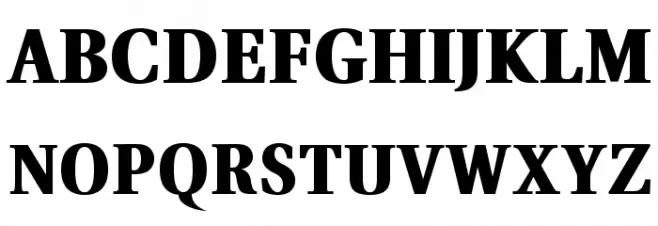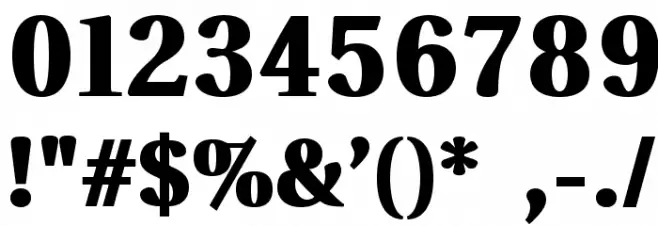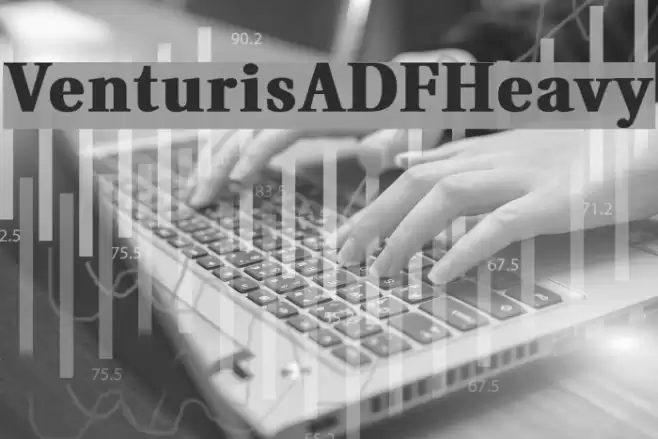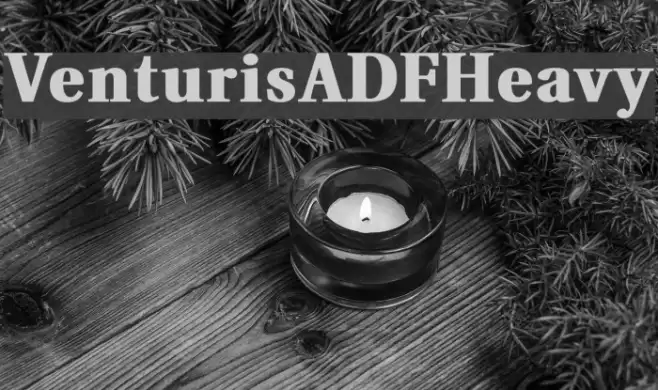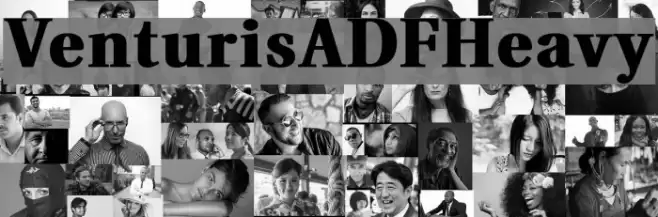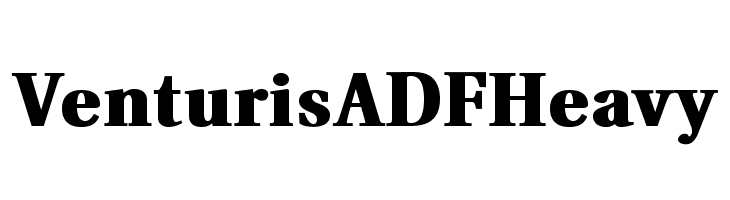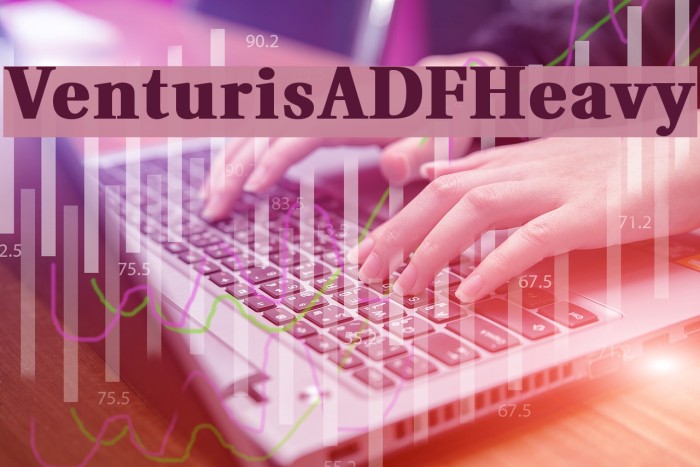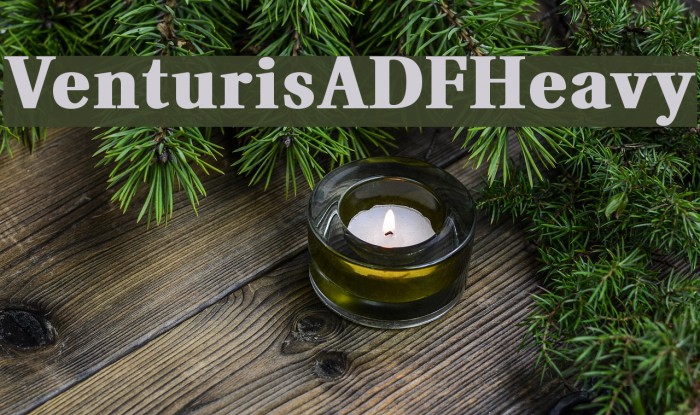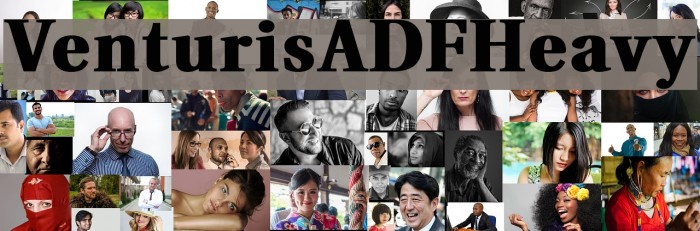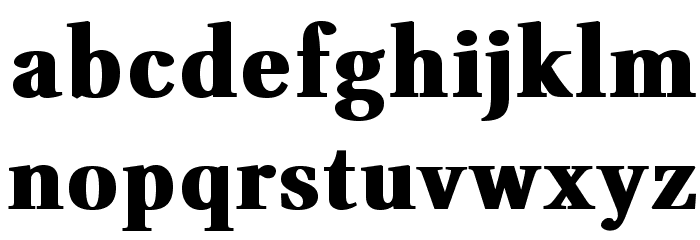
VenturisADFHeavy
This font exhibits a bold and authoritative presence with its thick, robust strokes and strong serifs. The uppercase letters are particularly commanding, with a traditional serif style that conveys a sense of reliability and strength. The lowercase letters maintain this boldness, ensuring consistency across text. The numerals are equally bold, providing clarity and emphasis. Special characters are well-defined, adding versatility to the font's usage. The overall design is classic yet impactful, making it suitable for various formal and professional applications.
A bold, serif font with strong, authoritative strokes and classic design.
- Proposed Projects: Ideal for headlines, book covers, branding materials, and any project requiring a strong, classic serif presence.
- Category: Serif
- Contrast: High
- Overall Style: Classic
- Use Case: Headlines, Logos, Branding